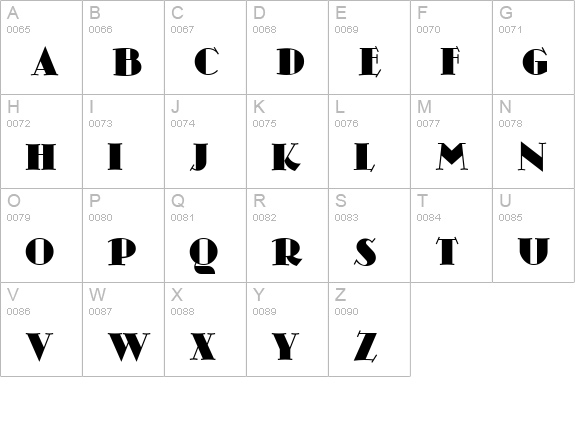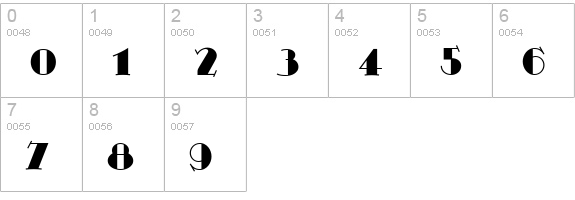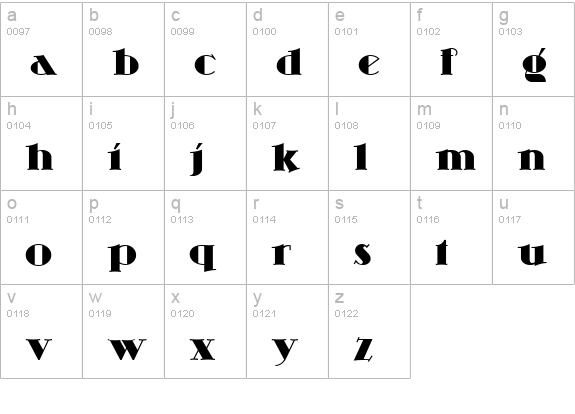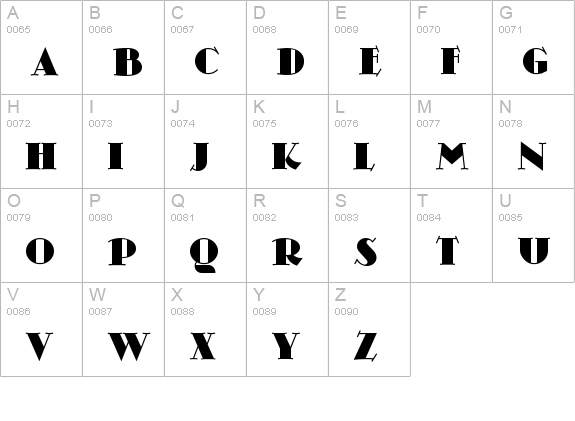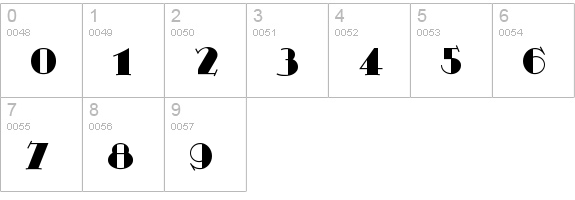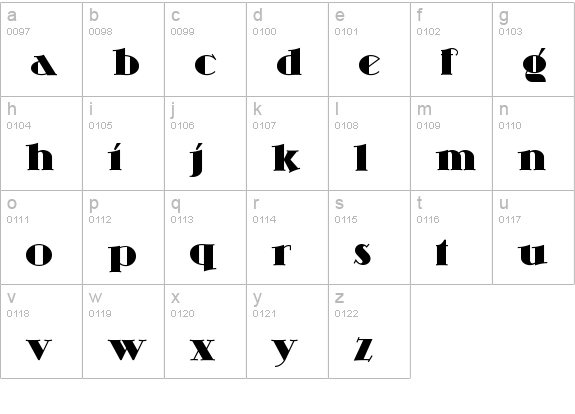
Skittles n Beer NF font is a whimsical and playful typeface that combines the fun and colorful vibe of skittles candy with the casual and laid-back feel of enjoying a cold beer. This font features unique letterforms that add a touch of individuality and creativity to any design project. Whether you're working on party invitations, advertising materials, or simply looking to add a fun twist to your personal projects, Skittles n Beer NF font is the perfect choice. Its bold and eye-catching appearance will help your text stand out and make a lasting impression. Best of all, Skittles n Beer NF font is completely free to download at FontsMarket.com. So go ahead and unleash your creativity with this exciting and vibrant typeface today!